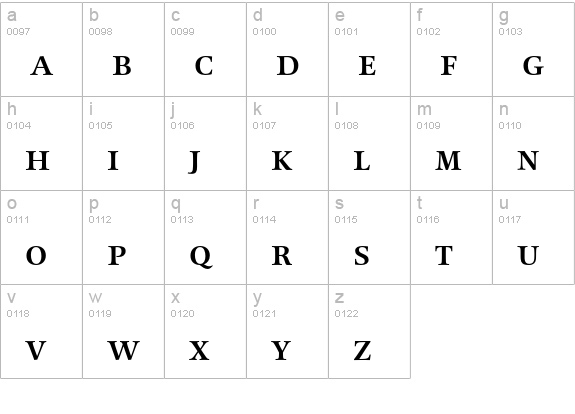
Mentor Regular SC Font Details
Mentor Regular SC is the standard, neutral variant in the Mentor typeface family \xE2\x80\x94 well suited to general body text, paragraphs, and standard typographic work.
Mentor Regular SC font is a modern and sophisticated typeface that exudes elegance and professionalism. With its clean lines and balanced proportions, this font is perfect for a wide range of design projects, from branding to editorial design. The sleek and timeless look of Mentor Regular SC makes it a versatile choice for both print and digital applications. The best part? Mentor Regular SC font is available for free download at FontsMarket.com. You can easily access this high-quality typeface and elevate your designs with its classic yet contemporary style. Don't miss out on the opportunity to enhance your projects with the refined aesthetic of Mentor Regular SC font – download it for free today!